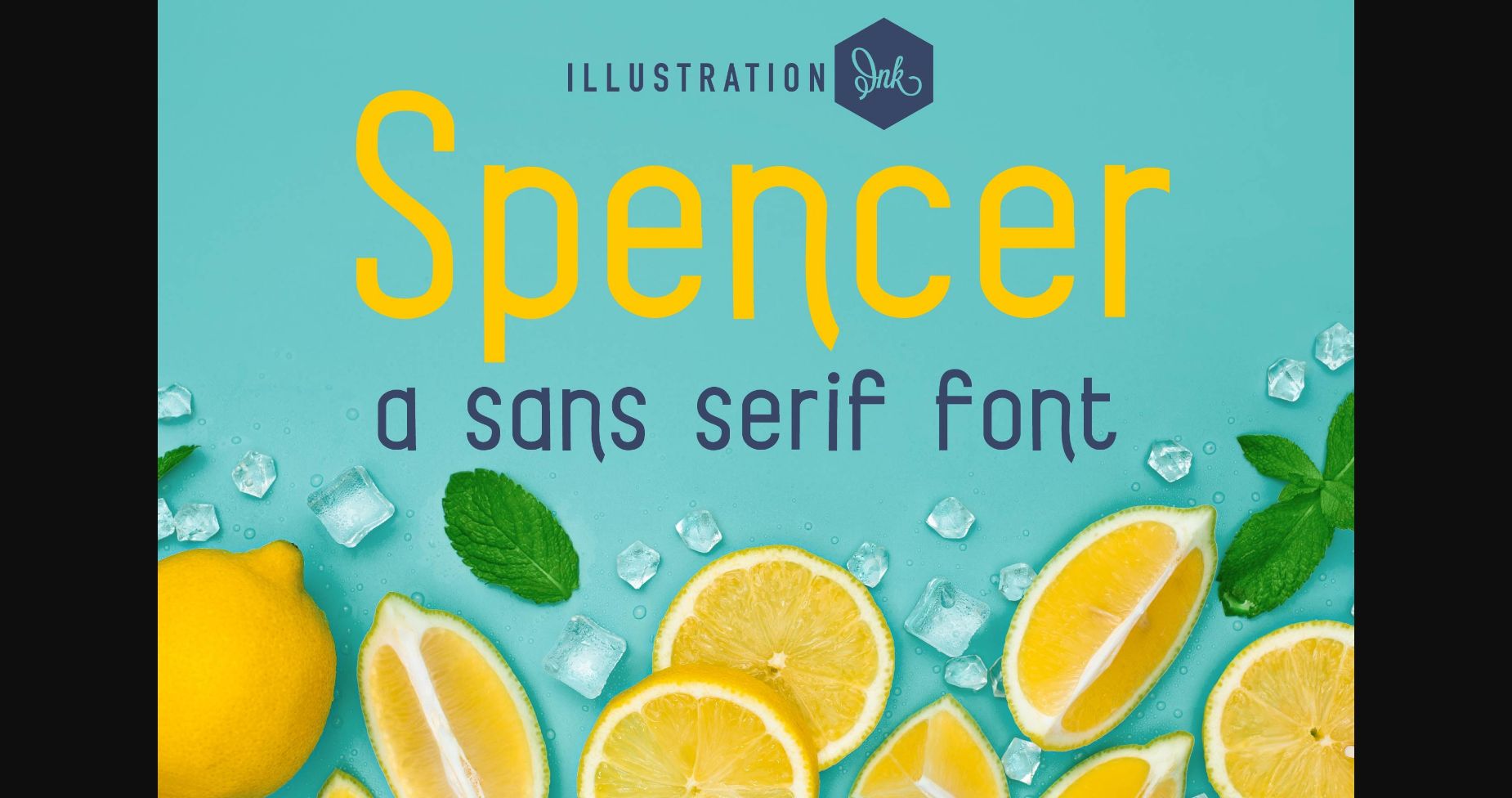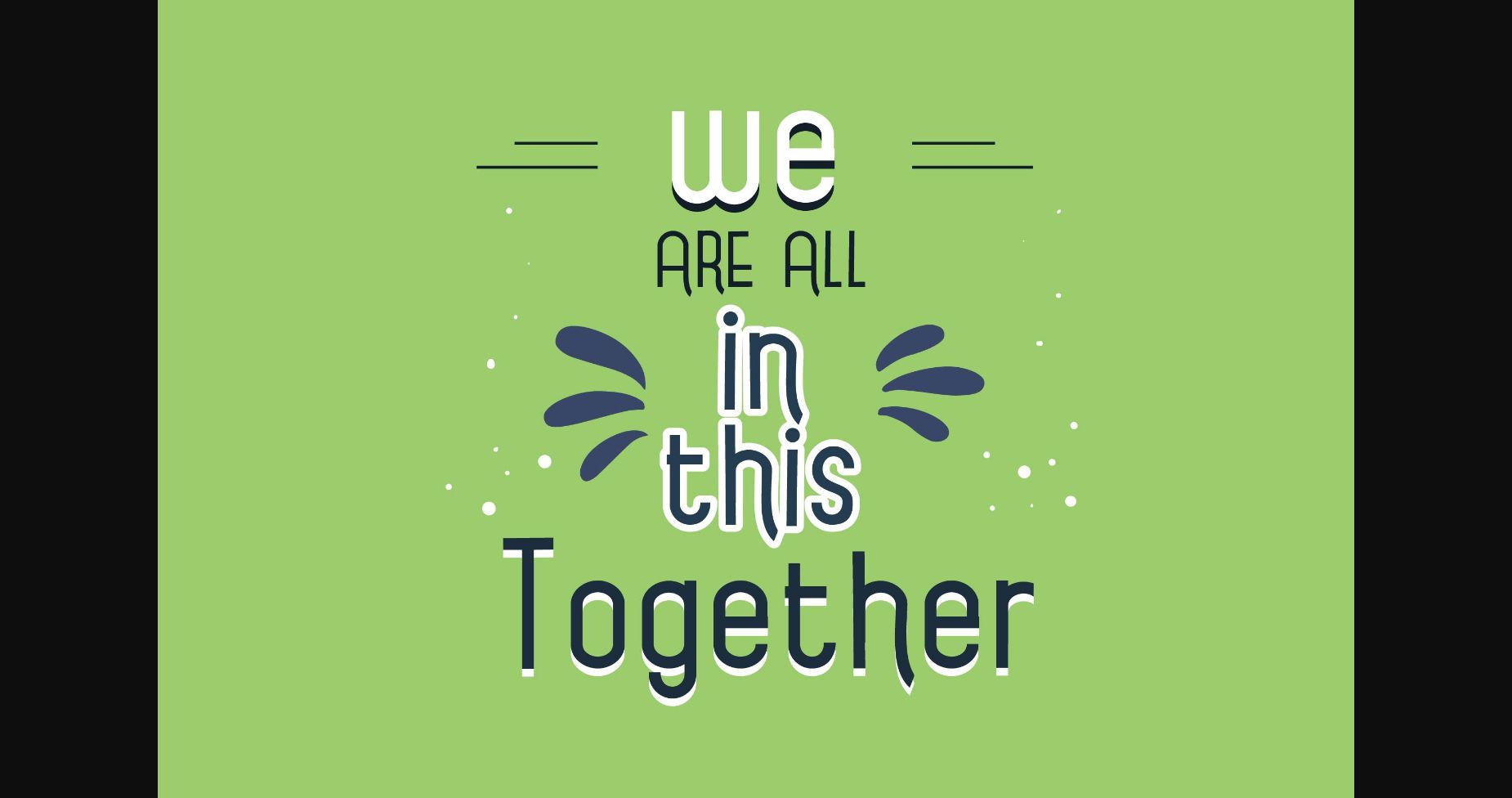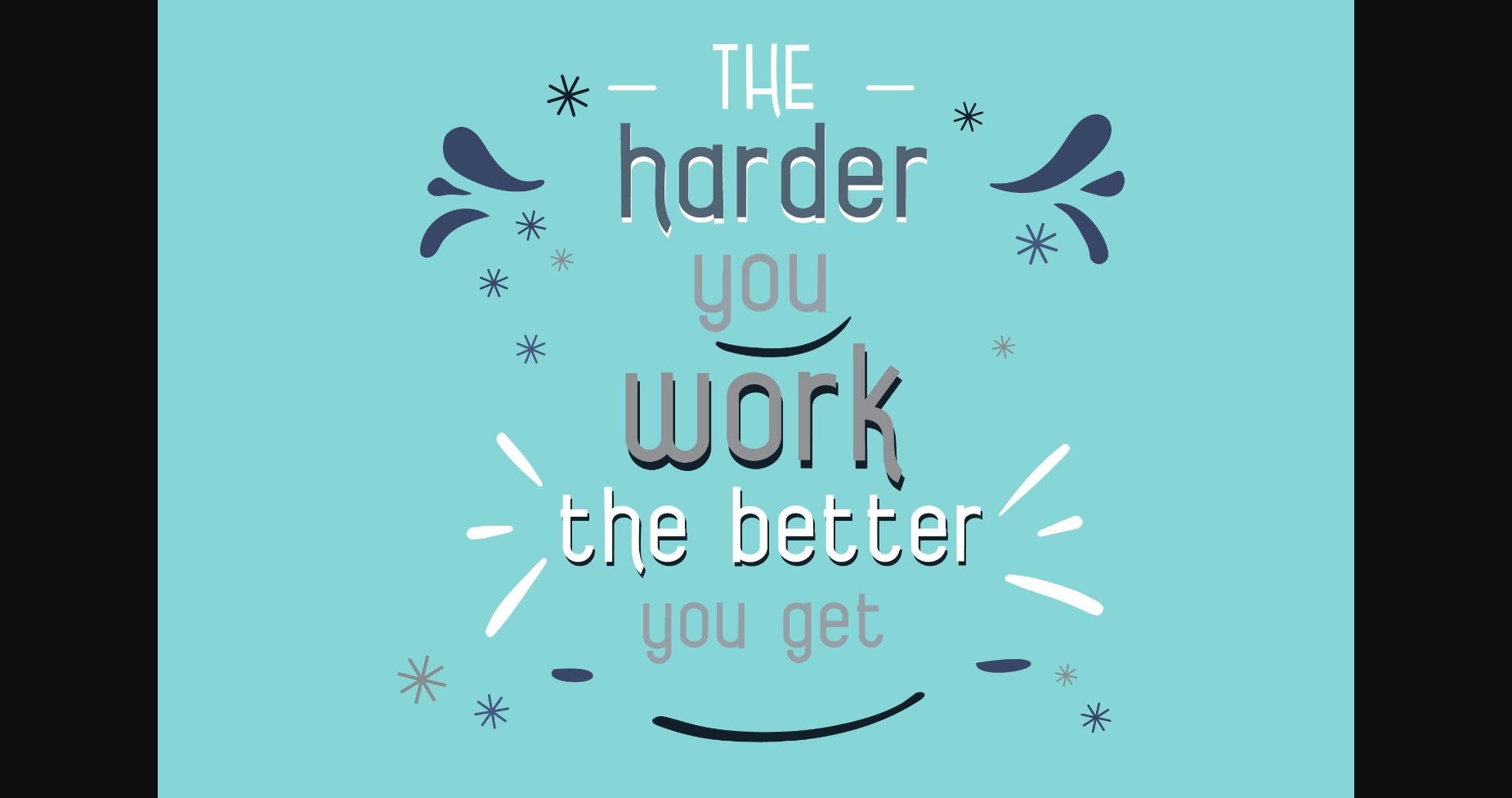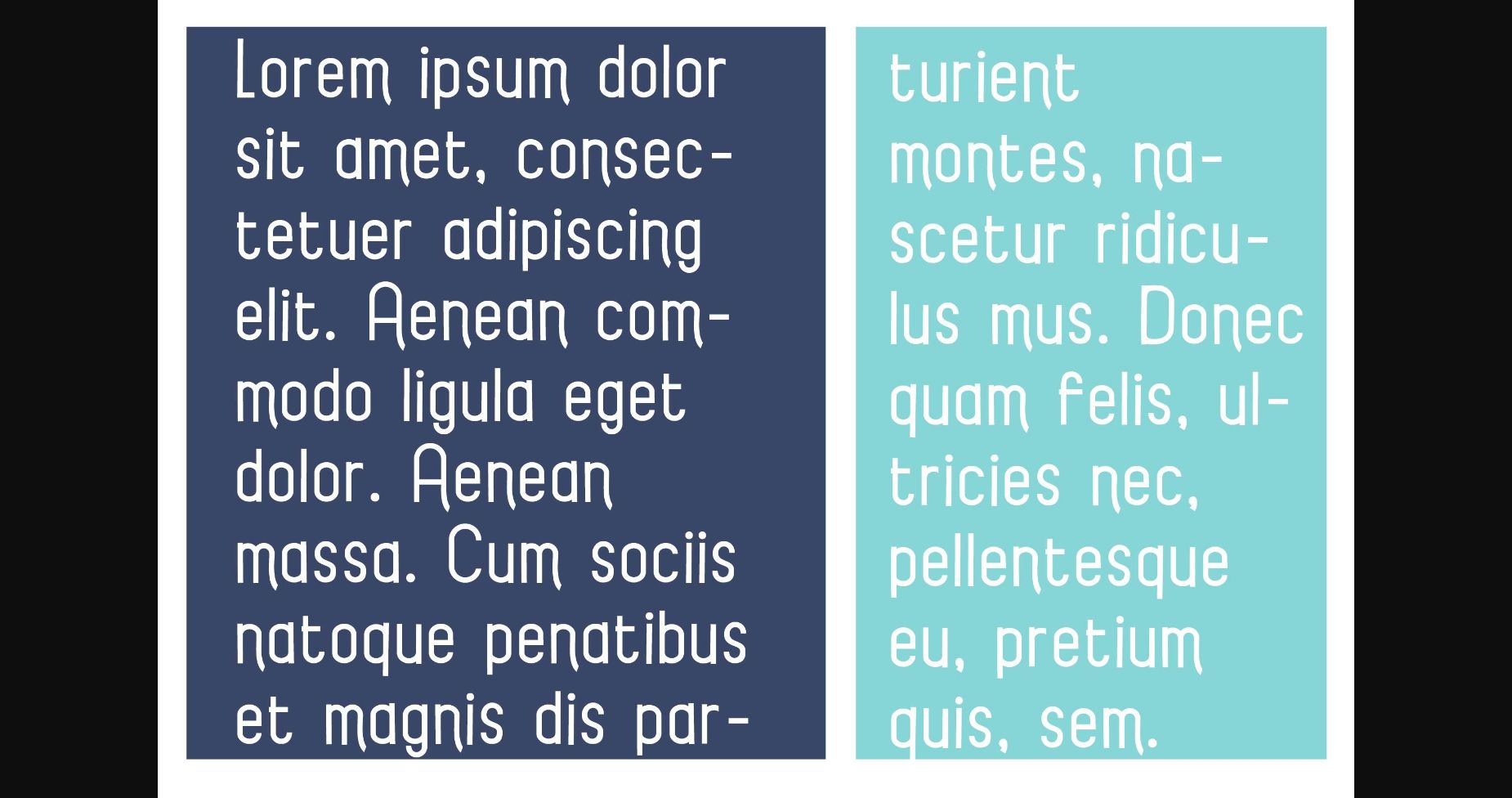
About Spencer Font
Spencer is a lively and playful sans serif font that brings joy to every design. Its clean and rounded letterforms exude a friendly and approachable vibe, making it perfect for a wide range of creative projects. From children’s books to vibrant posters, Spencer’s versatility shines through, adding a delightful touch to any typography with its whimsical charm.